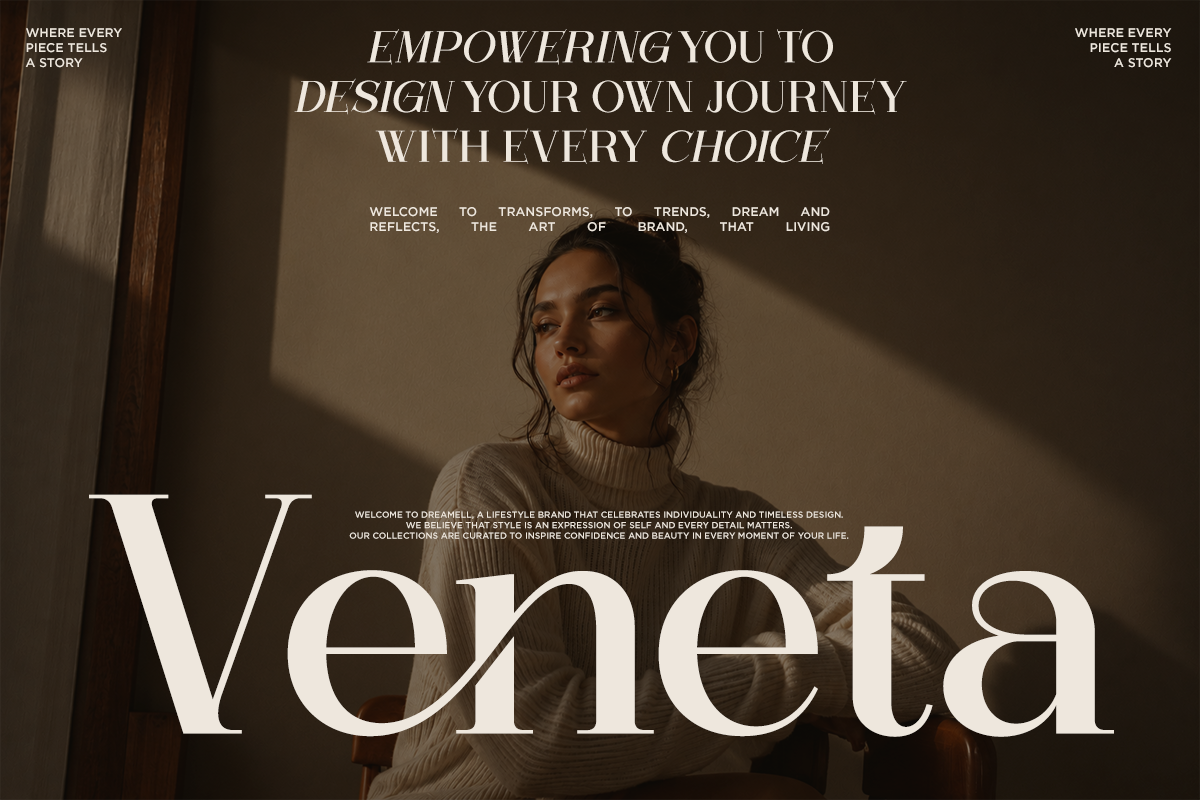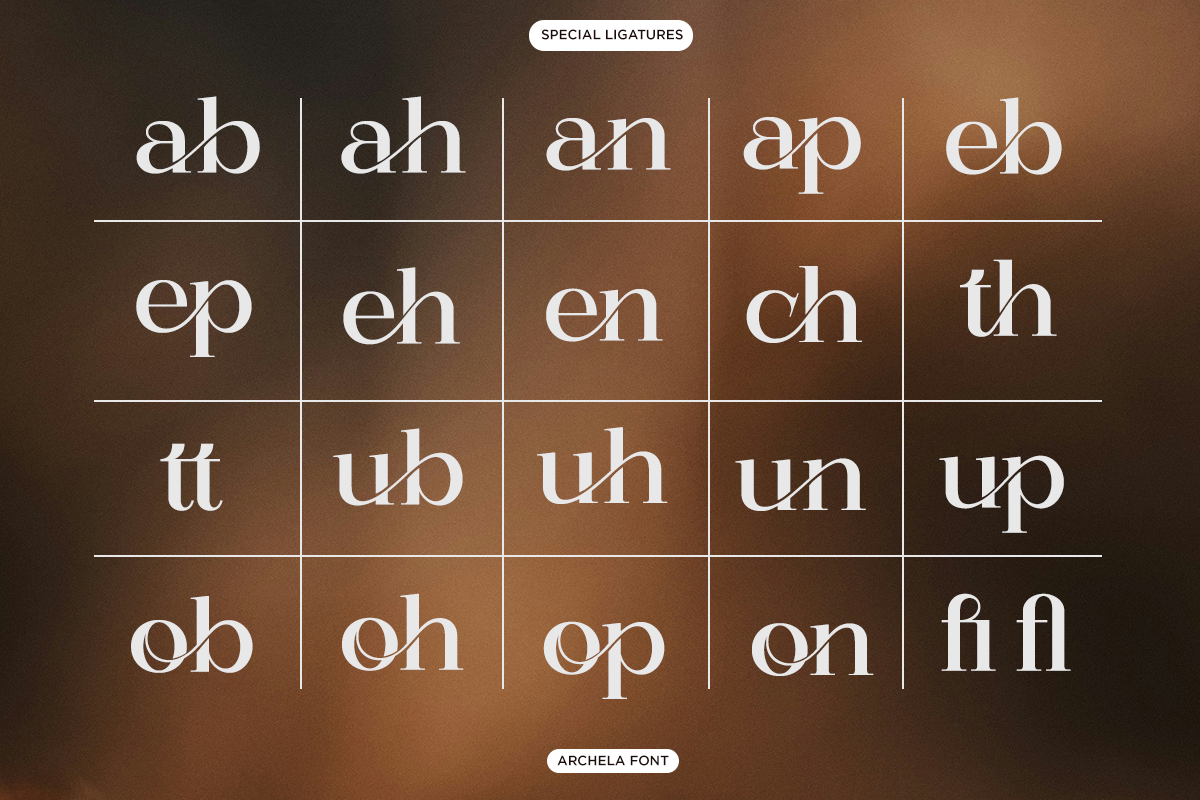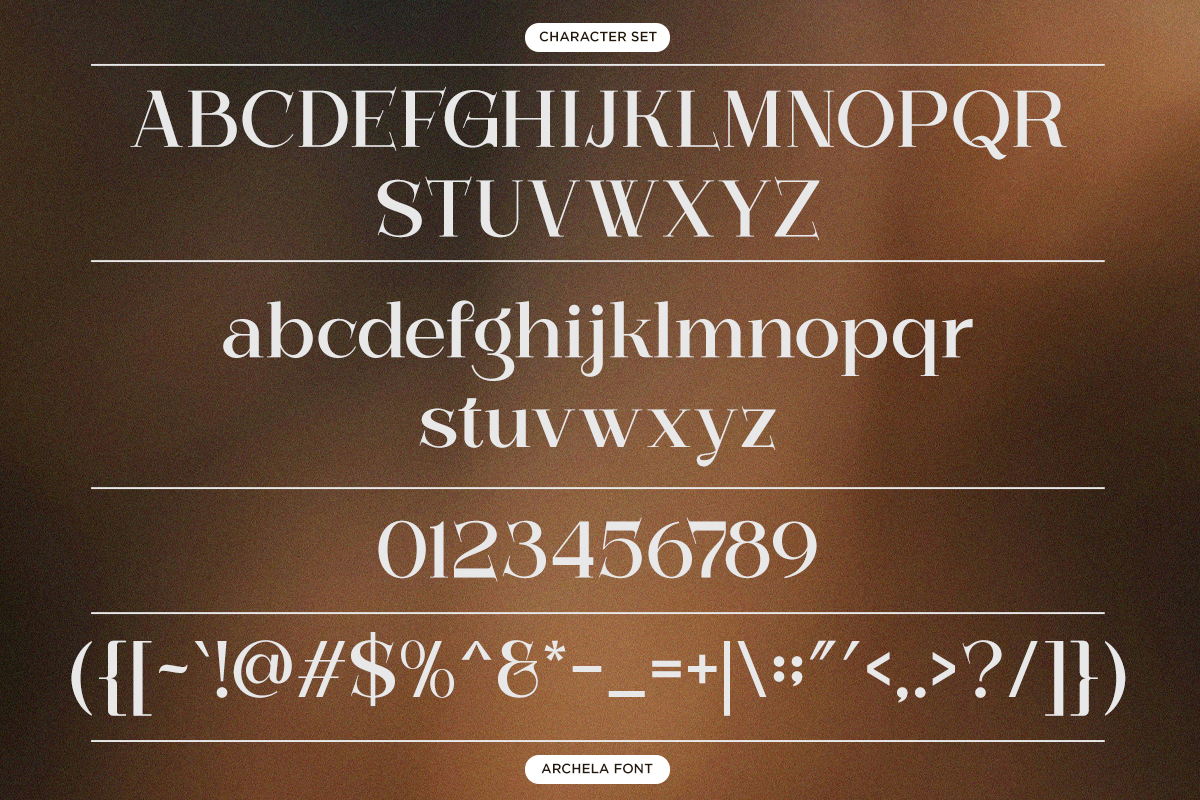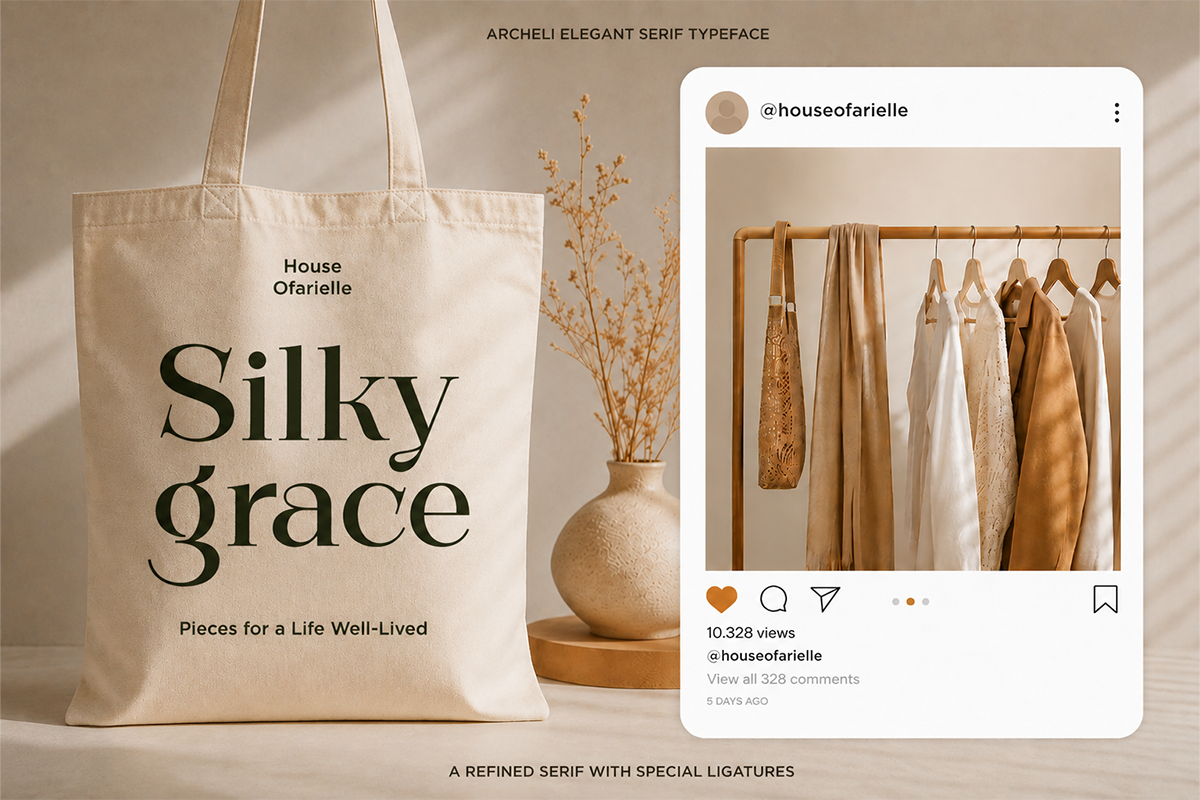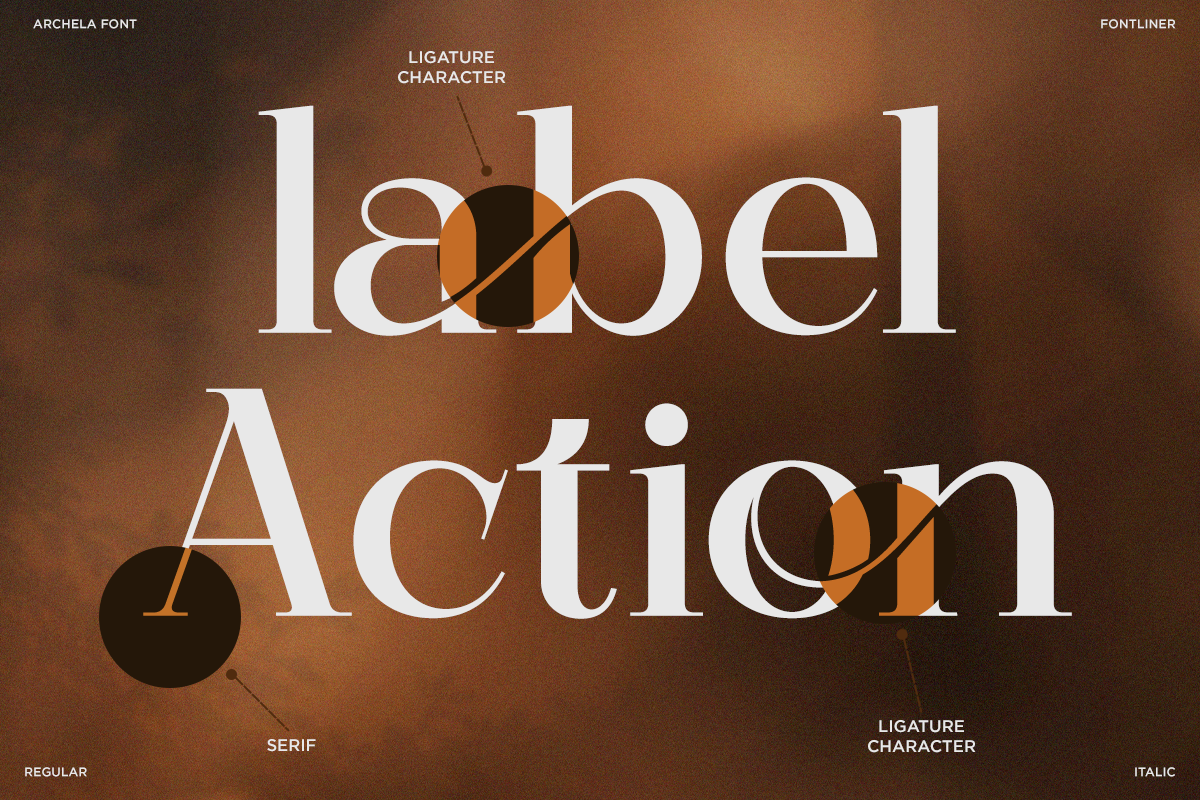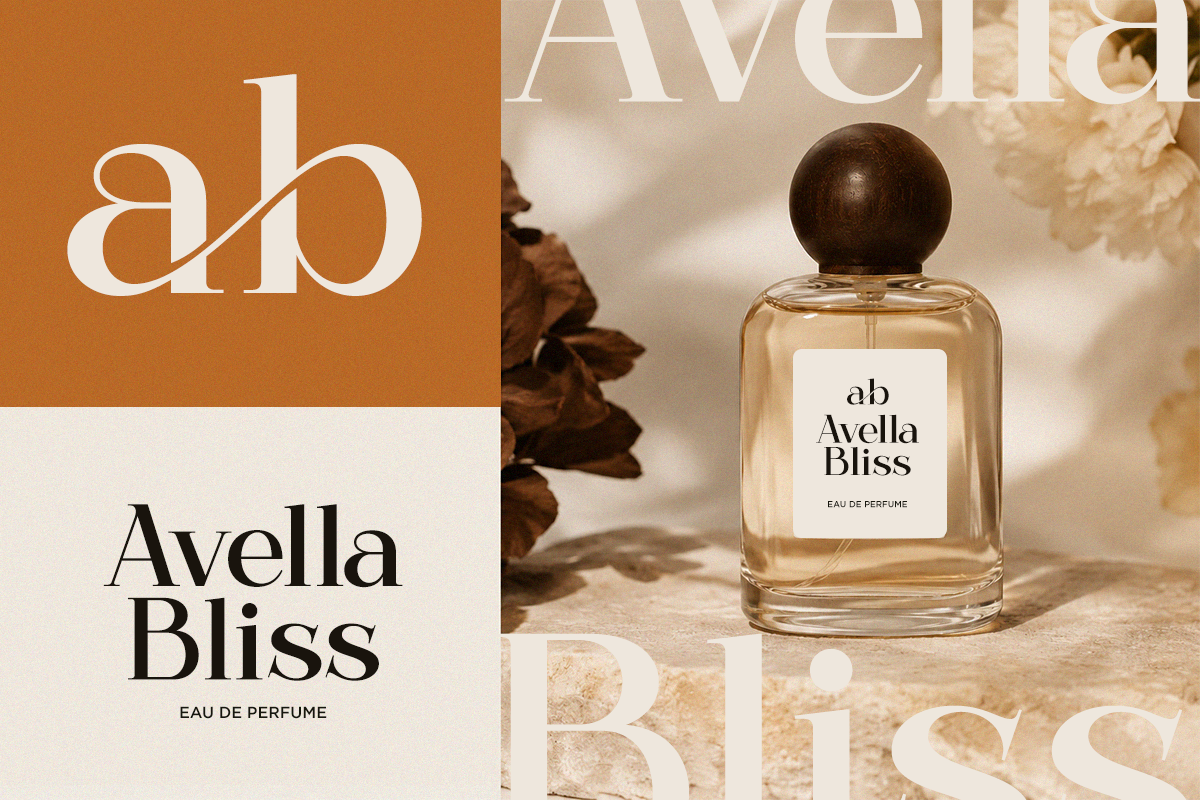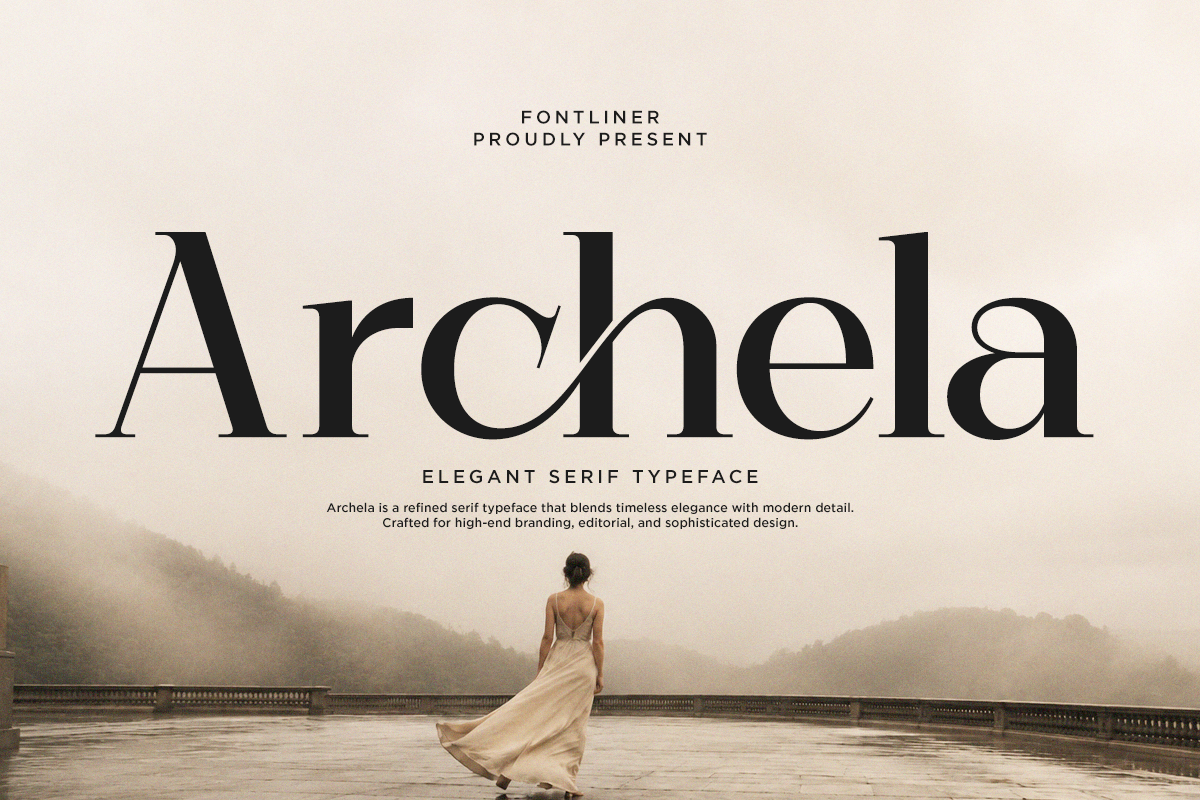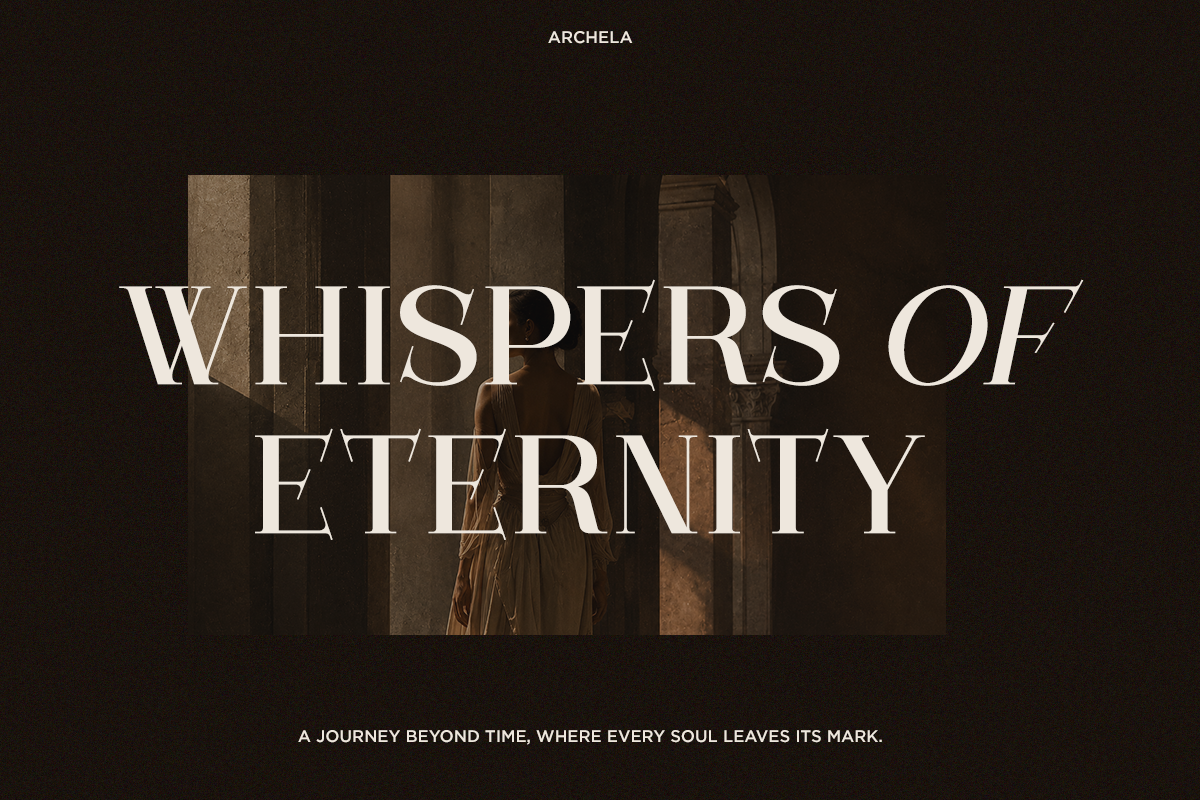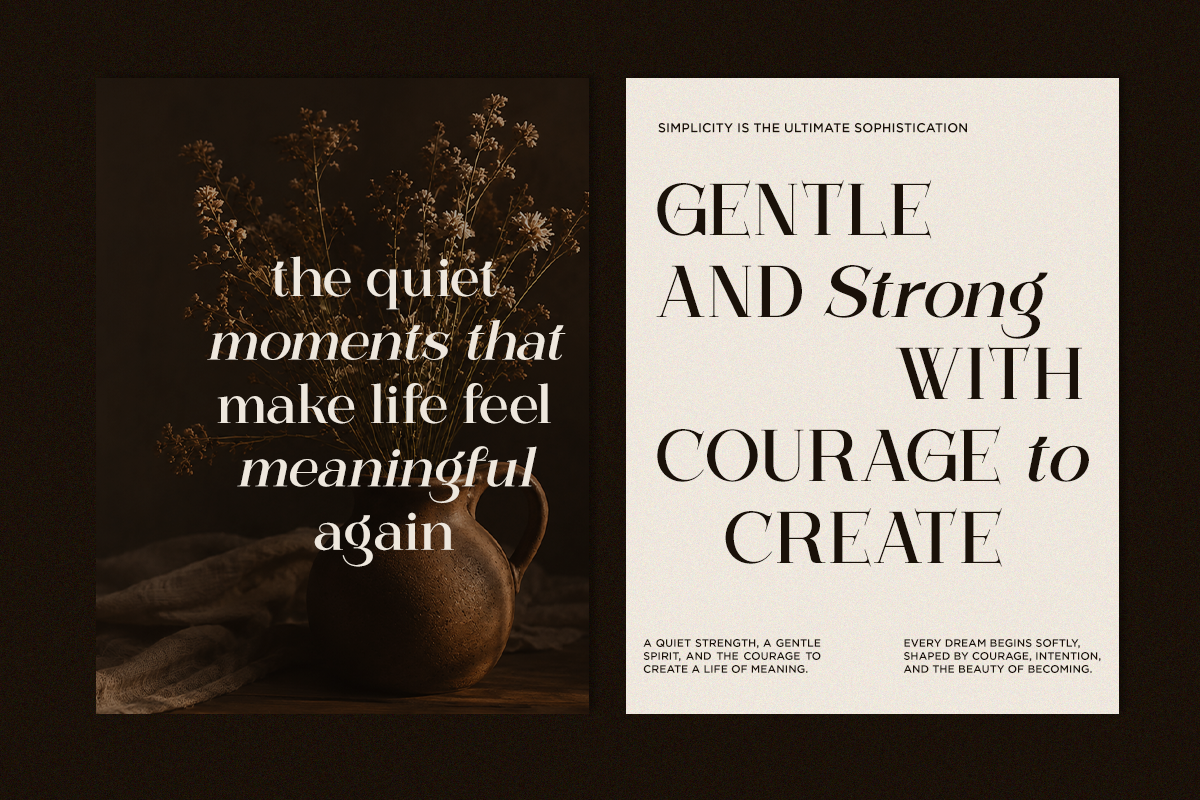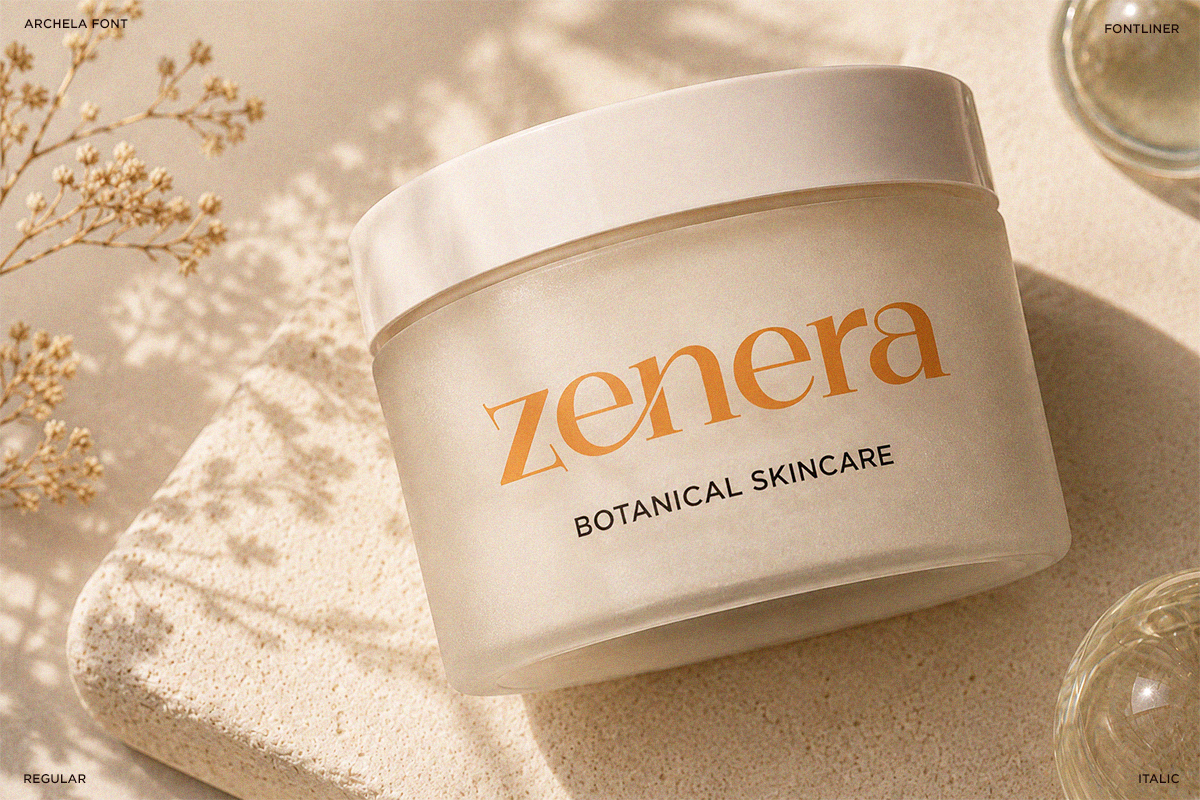
Archela - Ligature Elegant Serif
Archela is an elegant ligature serif font designed for sophisticated branding, luxury editorial layouts, and timeless visual identities. Its refined high-contrast letterforms and distinctive ligatures create a graceful, premium aesthetic that feels both classic and contemporary. Perfect for designers looking to add an elevated touch to their creative projects.
With its stylish character and expressive typography, Archela works beautifully for fashion campaigns, beauty branding, cosmetics packaging, magazine covers, wedding stationery, boutique identities, and premium product presentations. Its elegant proportions make it especially effective for headlines, logos, titles, and statement typography where a luxurious visual impression is essential.
Archela includes versatile OpenType features with carefully crafted ligatures for creating distinctive typographic combinations. The font is suitable for branding, editorial design, packaging, advertising, social media graphics, invitations, posters, and other high-end creative projects. Available in OTF, TTF, and WOFF formats for flexible use across different design and digital applications.
Regular and Italic
Stylistic Ligatures
Number, Symbol, and Punctuation